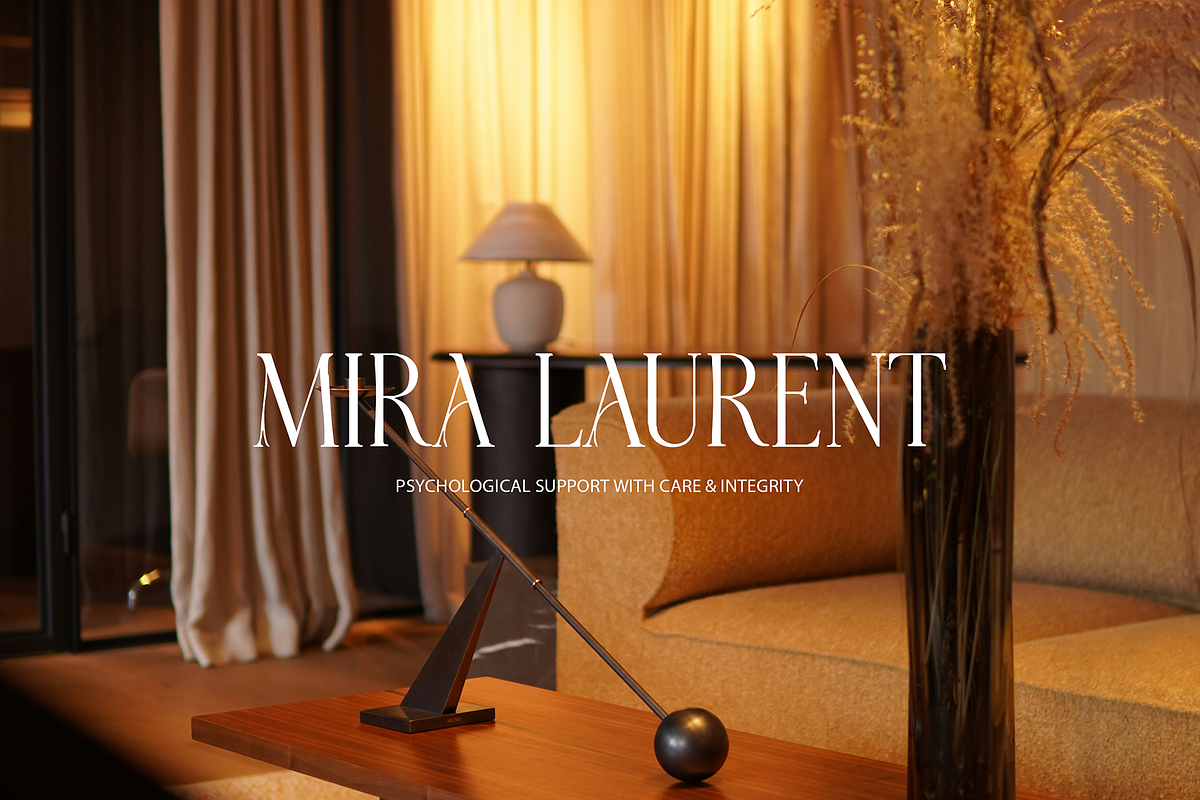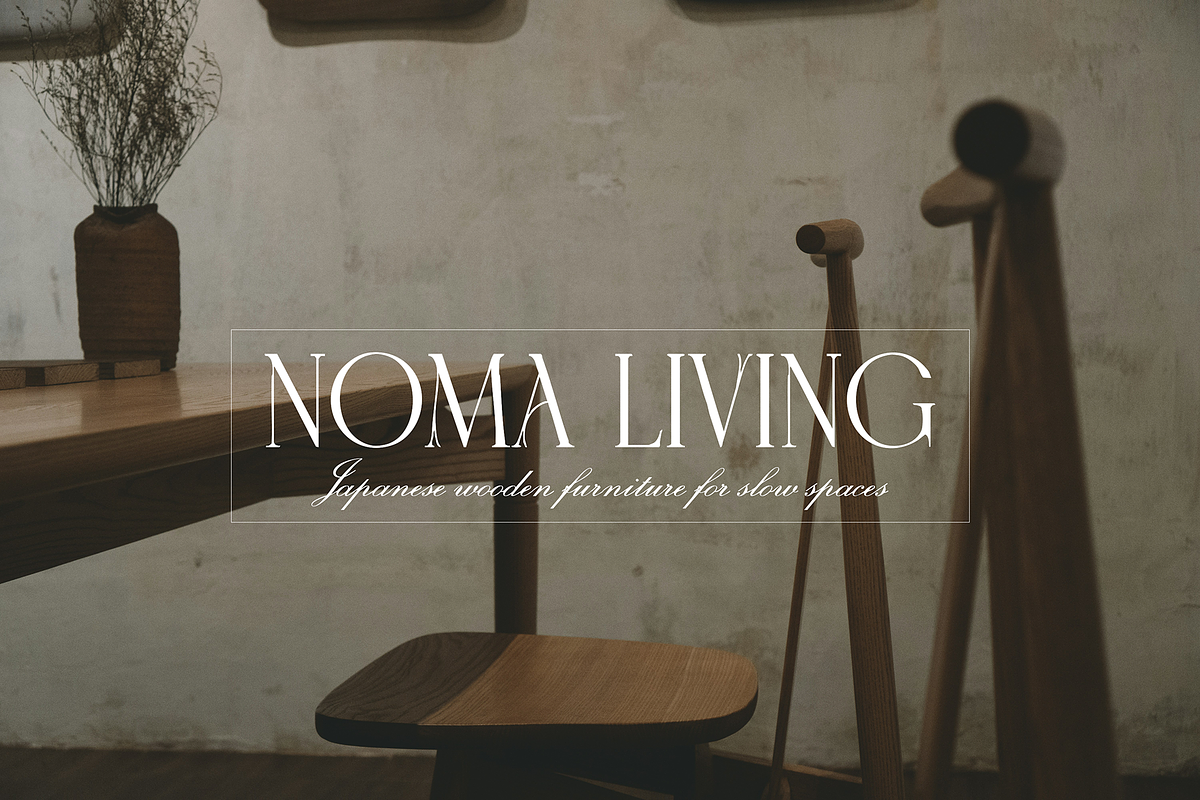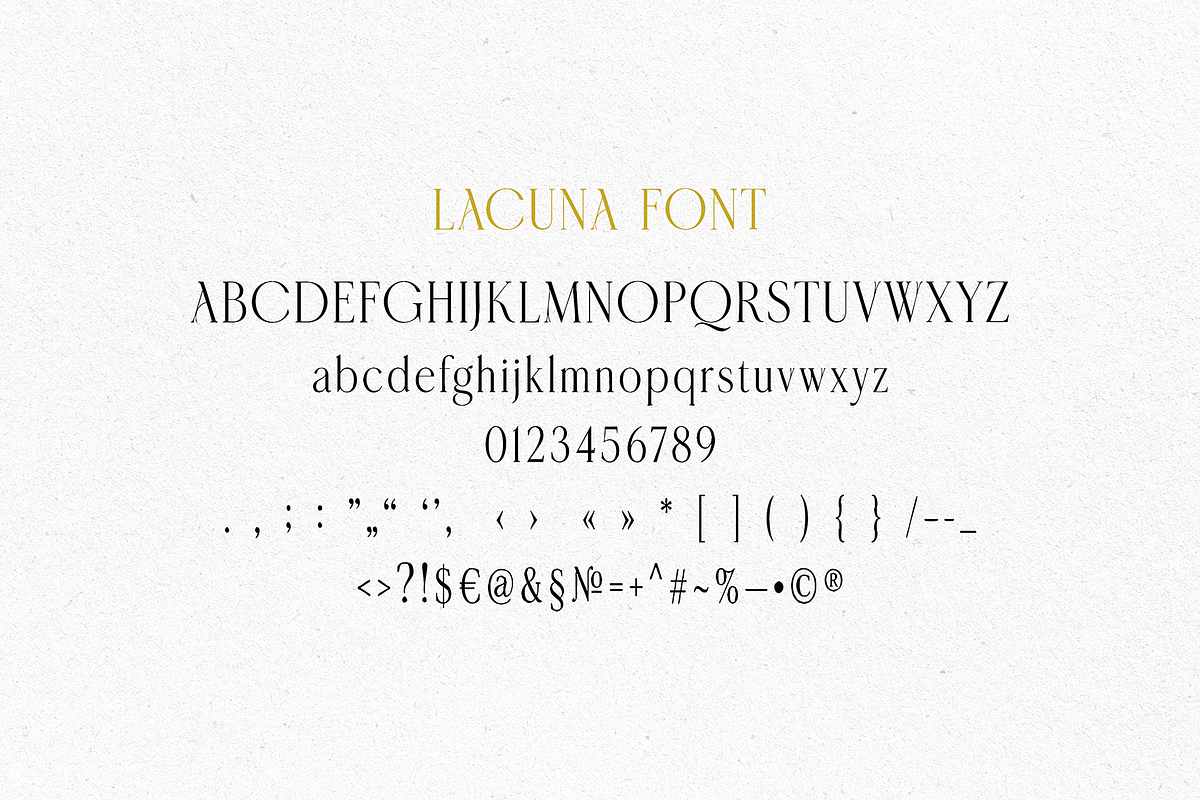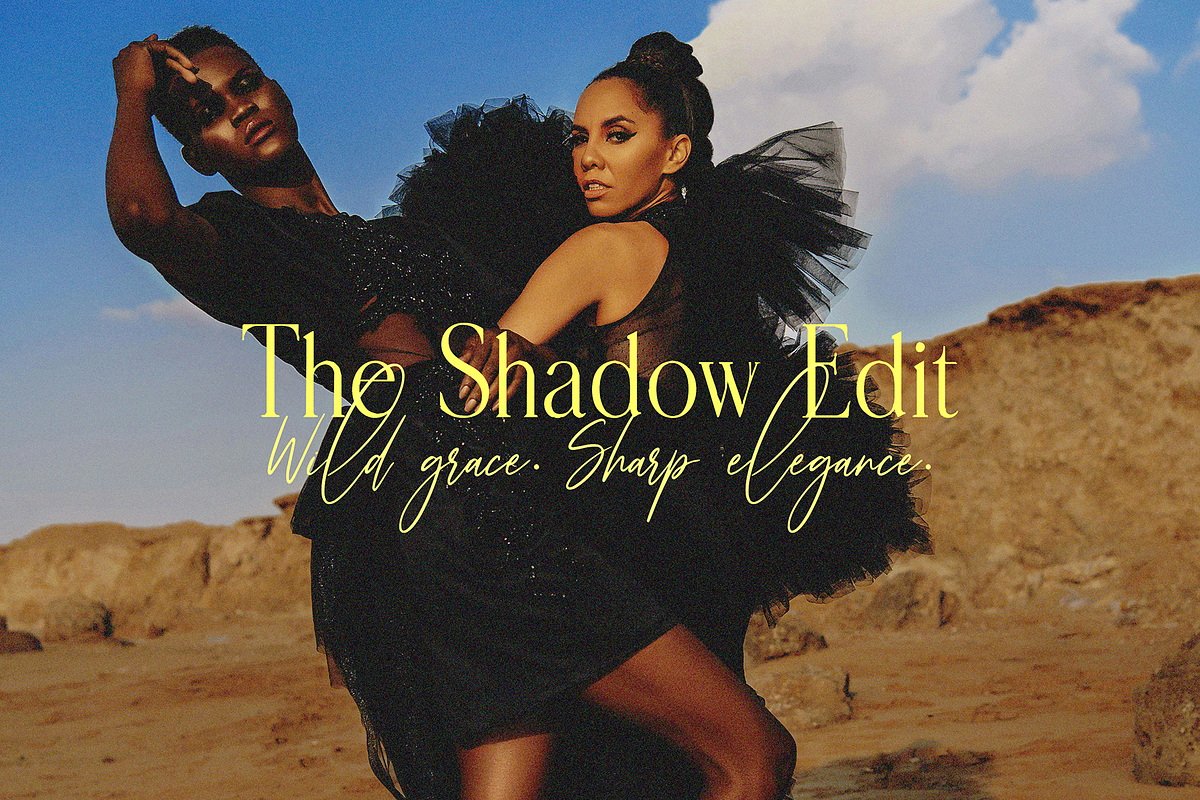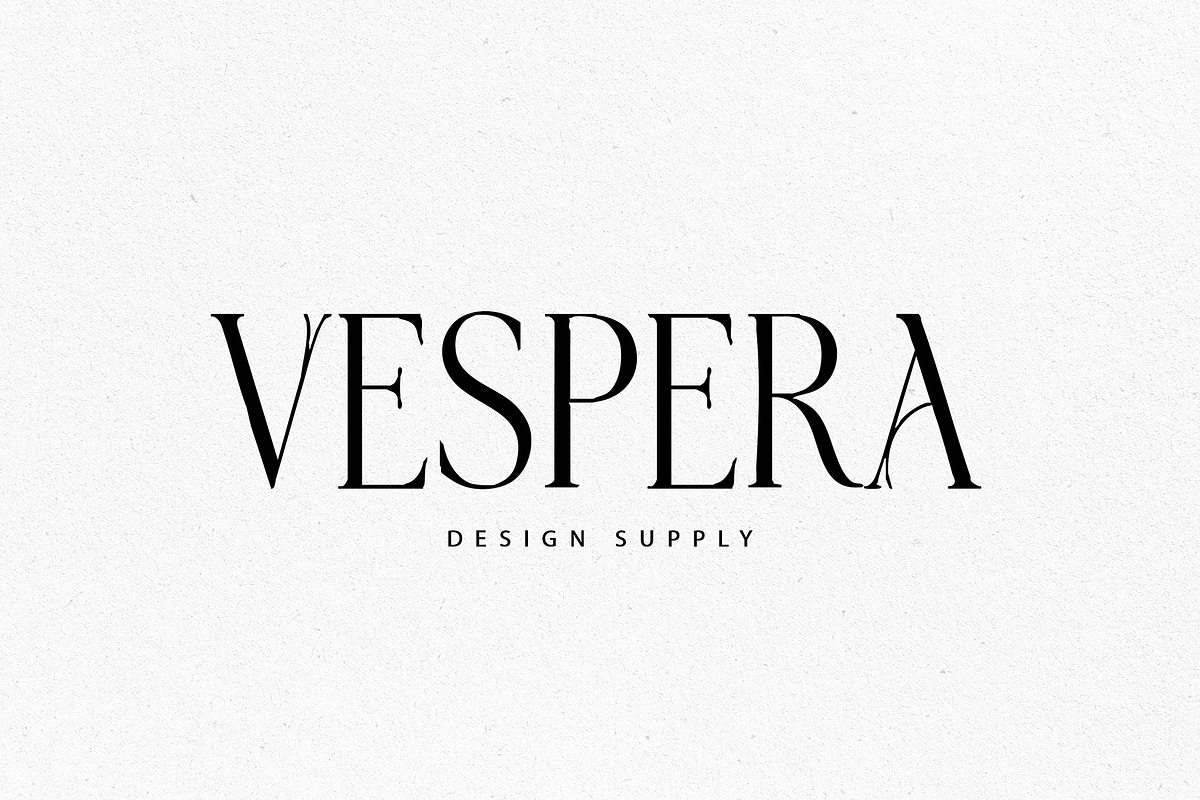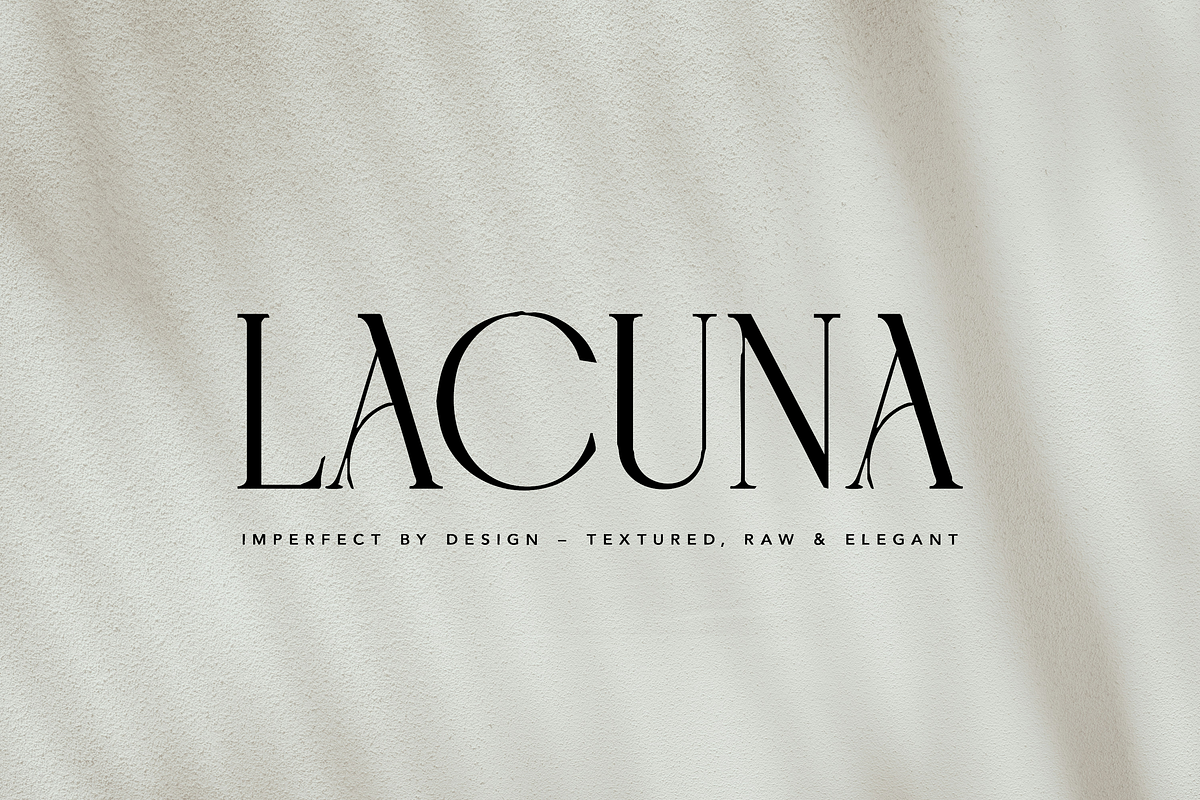
Lacuna Display Font
LACUNA is an elegant display serif font with a raw, textured character and refined high-contrast letterforms.
Designed to feel imperfect by design, Lacuna combines delicate serif details, sharp elegance, and a subtle handmade texture — perfect for creating timeless, editorial, and premium visual identities.
This font works beautifully for:
Branding
Logos
Editorial layouts
Packaging design
Posters
Luxury product labels
Wedding stationery
Fashion lookbooks
Moodboards
Website headers